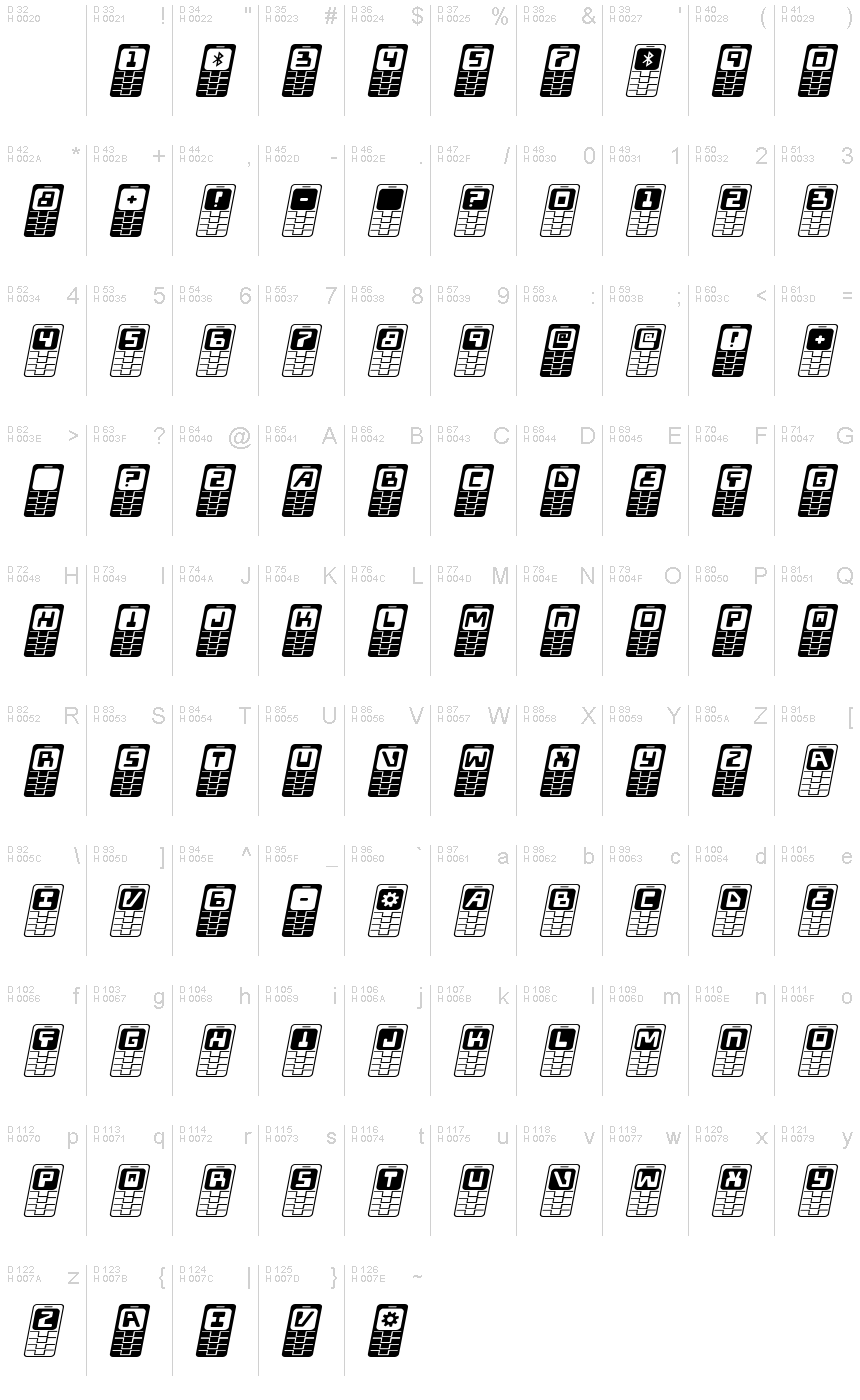
Hola Mota Expanded Italic
Hola Mota Expanded Italic, a captivating display font designed by Iconian Fonts, exudes a dynamic and vibrant personality. With its expanded character width and playful italic style, this font commands attention, effortlessly blending geometric shapes and organic curves to create a visually striking aesthetic. Its decorative nature lends an air of playfulness and energy, making it an excellent choice for attention-grabbing designs, editorial layouts, and branding projects that seek to convey a sense of movement and enthusiasm.
This versatile font can seamlessly transition between a variety of applications, from eye-catching poster designs and product packaging to impactful social media graphics and digital advertising. Its unique character shapes and expressive qualities make it an ideal selection for projects that aim to capture the essence of modern, dynamic, and visually engaging design.